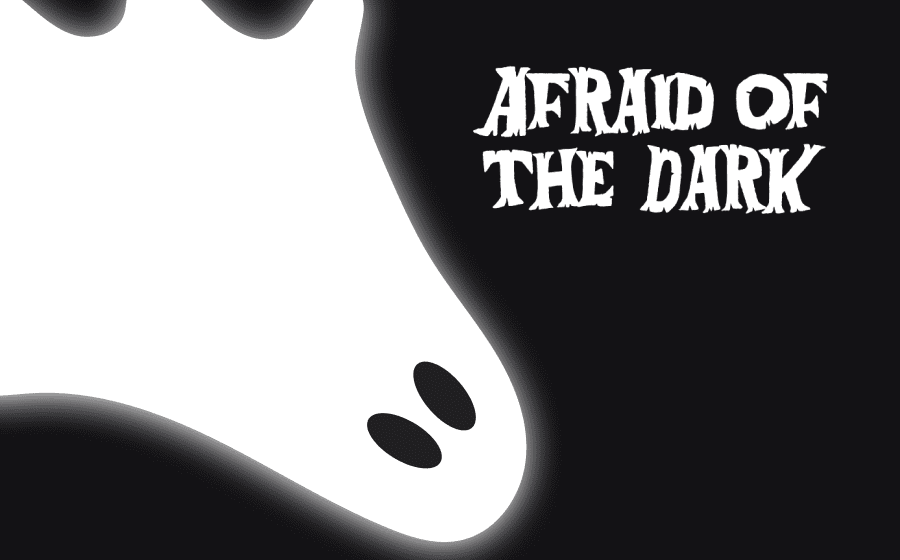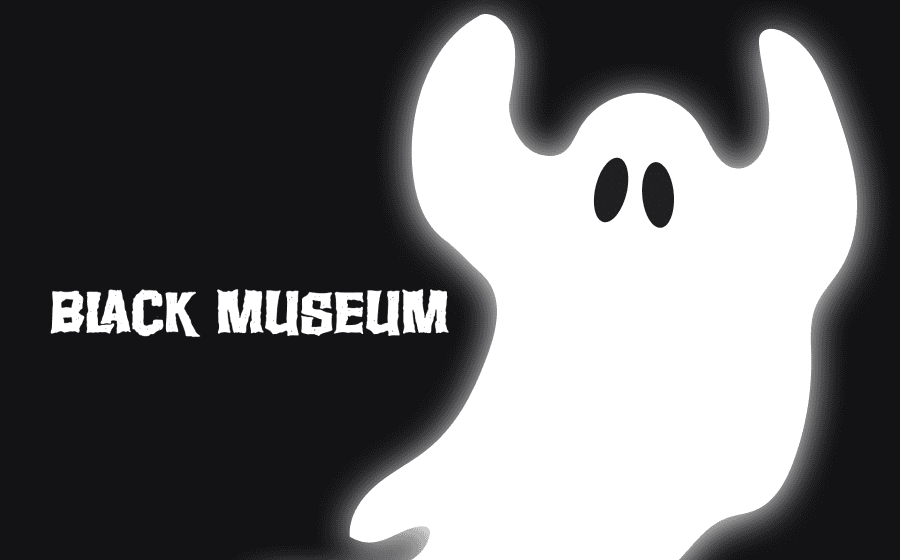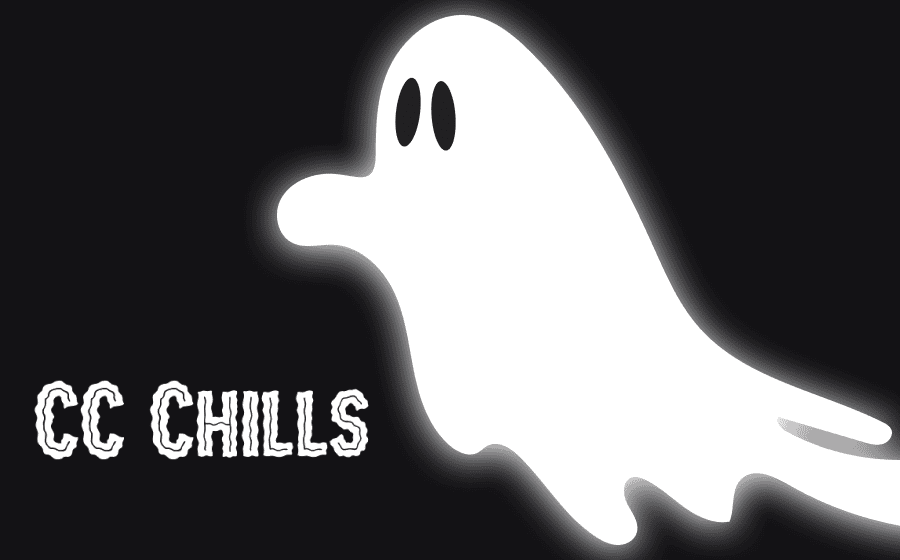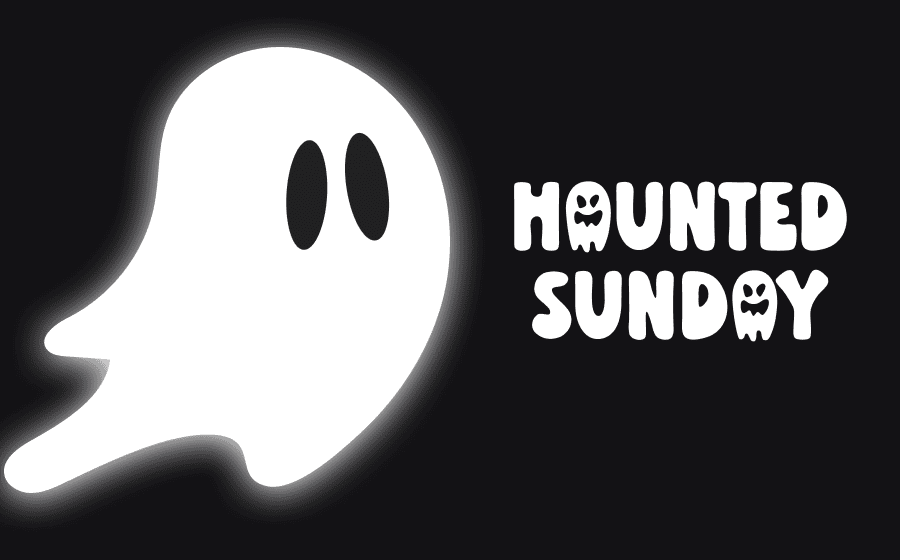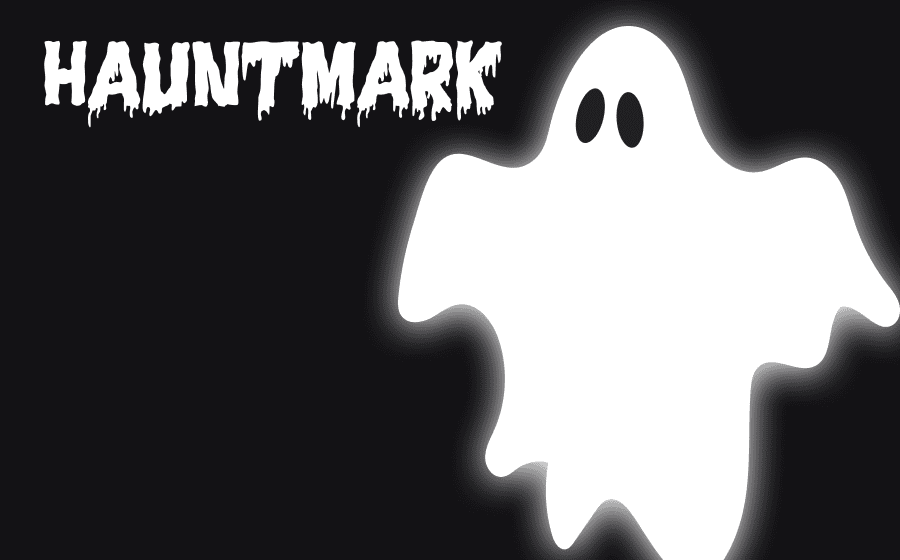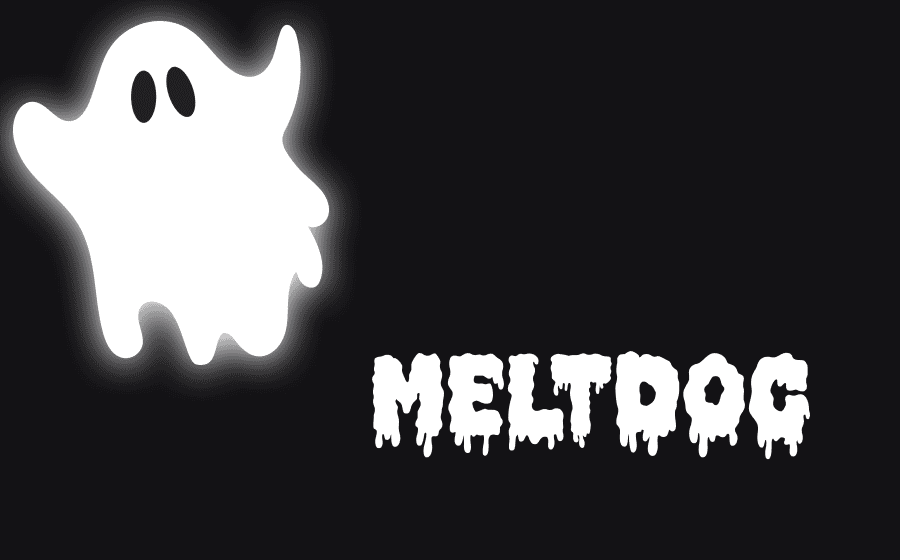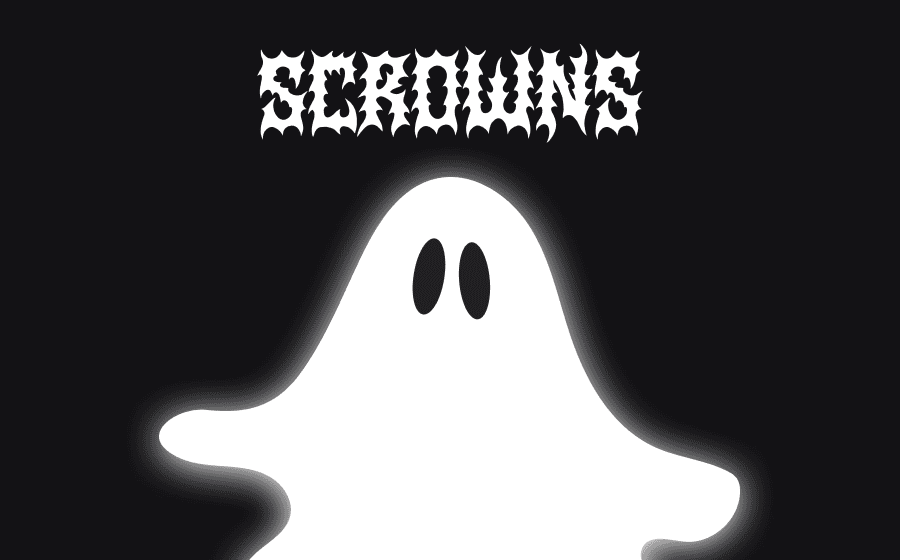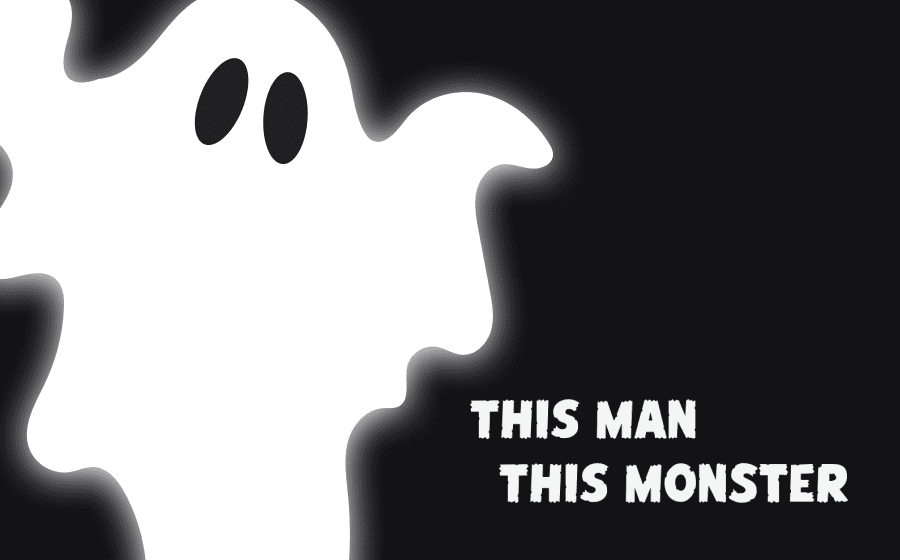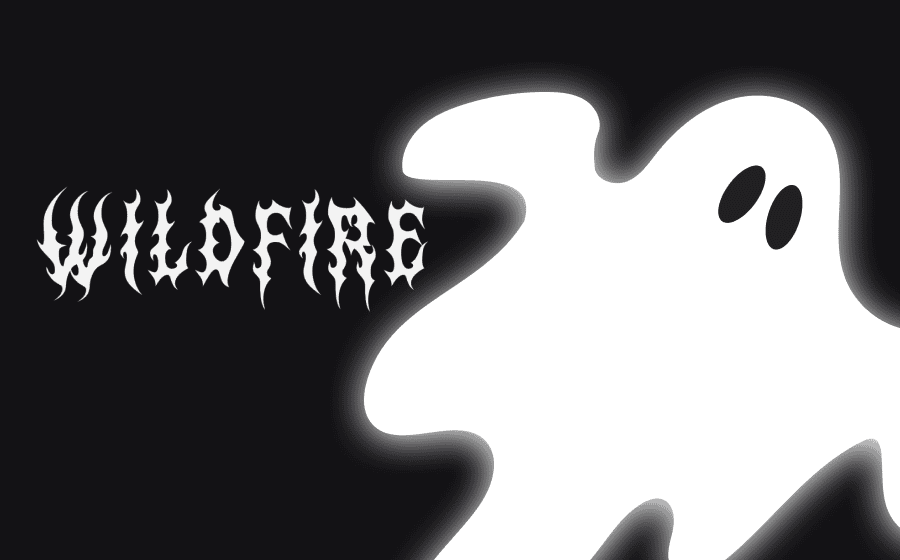
1. Meltdog
Meltdog is a haunting display font with a dripping, melting effect that adds eerie, eye-catching character to any horror or Halloween-themed design.
2. House of Cards
House of Cards is a bold, elegant serif font with dramatic contrast and sharp, theatrical lines—perfect for creating a sense of power and intrigue.
3. Hauntmark
Hauntmark is a spooky display font with jagged, uneven edges and a haunted aesthetic perfect for horror titles or any spooky designs.
4. Haunted Sunday
Haunted Sunday is a whimsical yet eerie display font, featuring uneven strokes and dripping accents that evoke ghostly hand-drawn charm.
5. Scrowns
Scrowns is a chilling display font with rough, scratchy edges and a gothic horror feel—ideal for anything spooky or sinister.
6. Afraid of the Dark
Afraid of the Dark is a jagged, shadowy display font that evokes a sense of eerie unease, perfect for spooky or horror-themed designs.
7. CC Chills
CC Chills is a sharp, scratchy display font with an unsettling, hand-drawn feel that instantly adds a chilling, horror-inspired atmosphere to any design.
8. Black Museum
Black Museum is a bold, gothic-inspired typeface with dramatic strokes and vintage undertones, perfect for creating a dark, mysterious, and theatrical mood.
9. Wildfire
Wildfire is a bold, dynamic display font with sharp, flame-like strokes that give designs an intense and energetic edge.
10. This Man This Monster
This Man This Monster is a jagged, distressed display font that channels raw comic book energy with an eerie, hand-drawn edge.